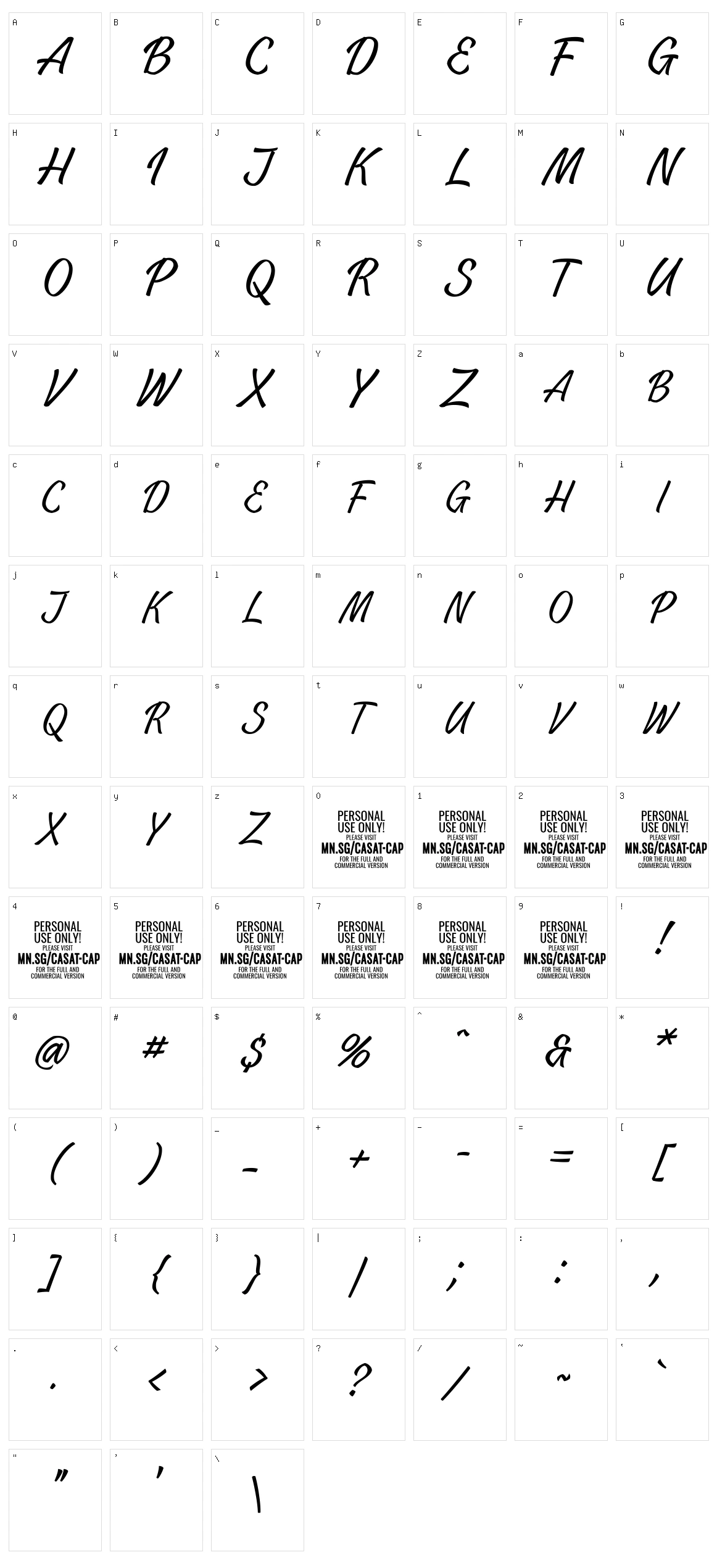
Casat Cap is a all-caps brush family.
The typeface is an original creation by Måns Grebäck, built during 2017.
Its five weight has been carefully designed and gives great variation to the font family:
Casat Cap Thin, Casat Cap Light, Casat Cap Med, Casat Cap Bold and Casat Cap Fat.
With its hundreds of glyphs, Casat Cap supports a very wide range of languages.